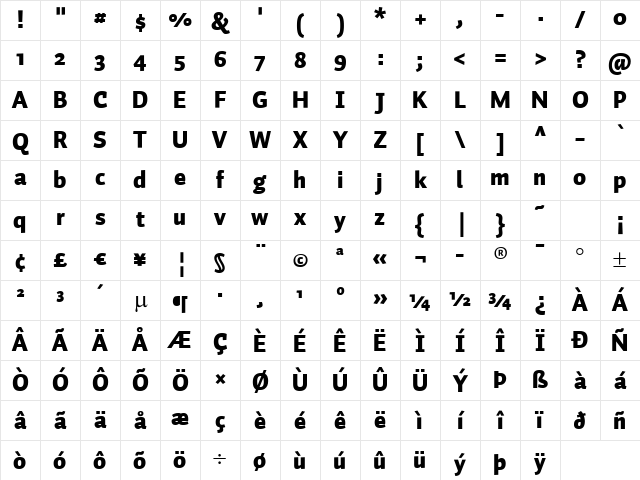
Auto 3 Black
Design Context for Auto 3
Auto 3 is a composed and adaptable typeface that performs quietly and consistently across a wide range of design contexts.